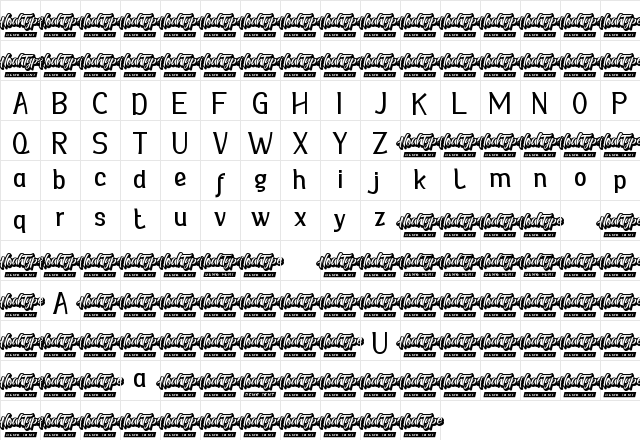
Complete Your Everyday Demo Bold glyph index. Displaying only characters natively supported by Your Everyday Demo Bold font.
Your Everyday Demo is a composed and adaptable typeface that performs quietly and consistently across a wide range of design contexts. Its bold stroke weight gives it real presence on the page.